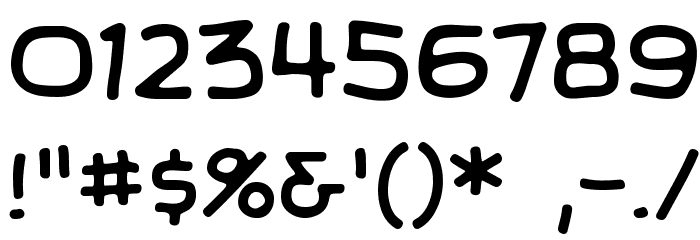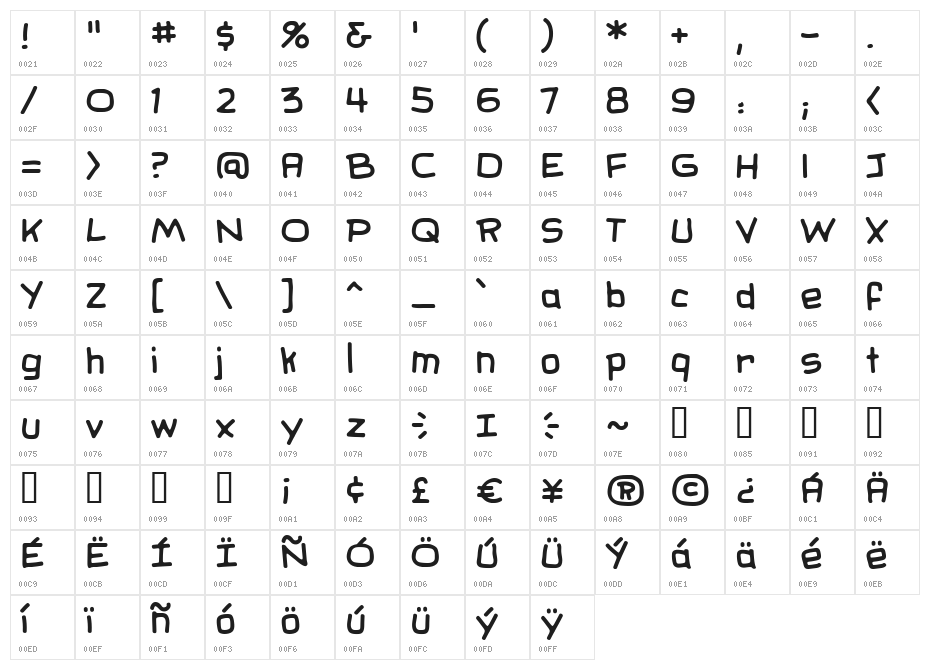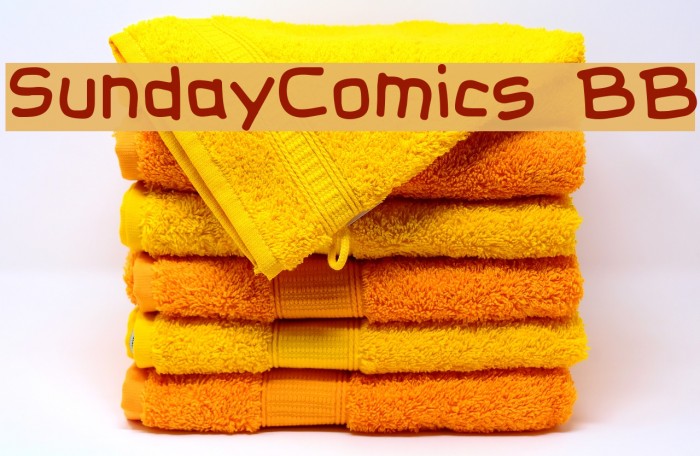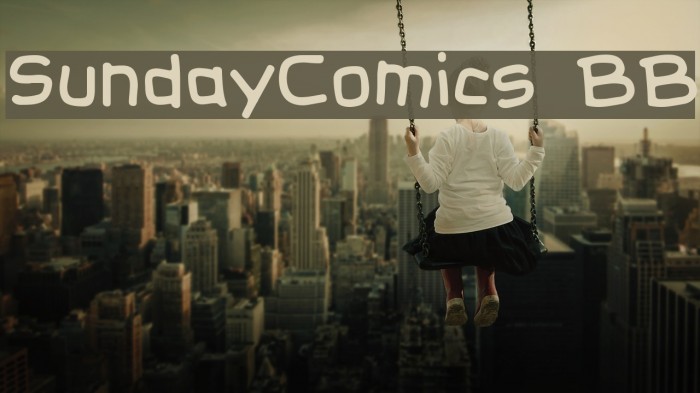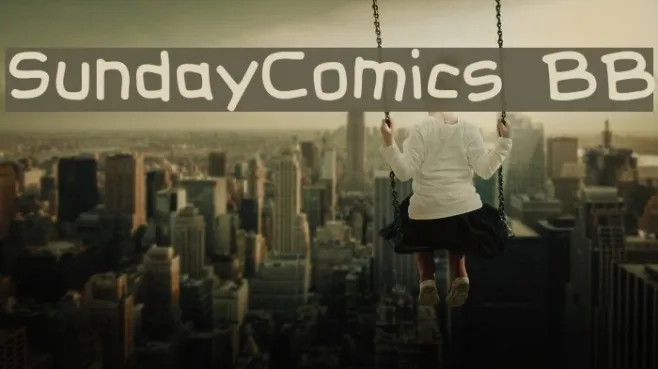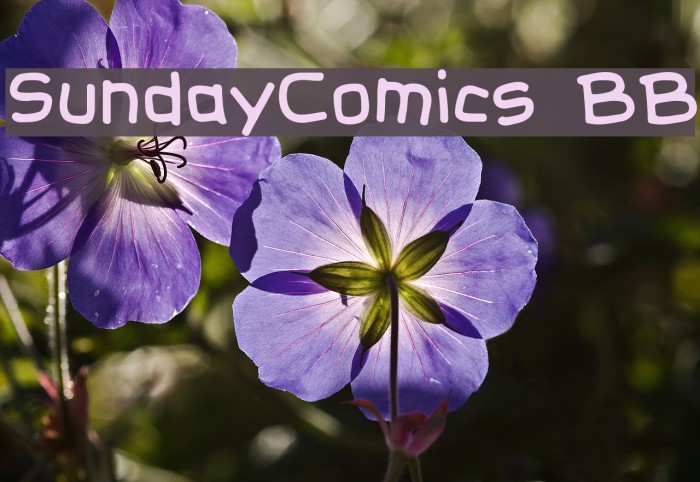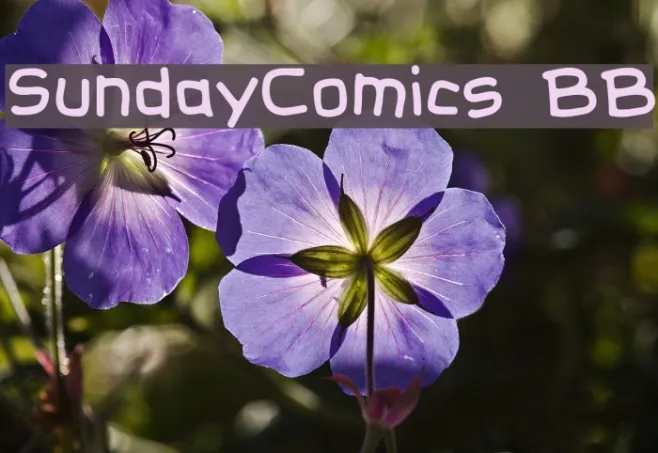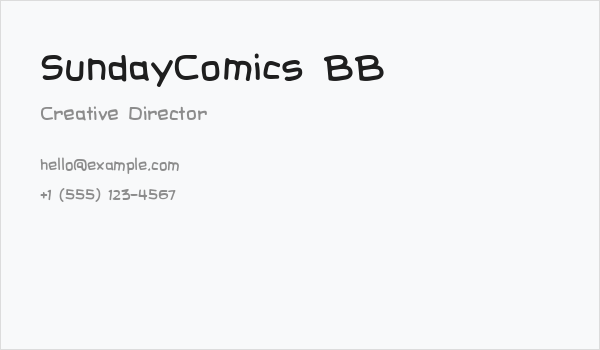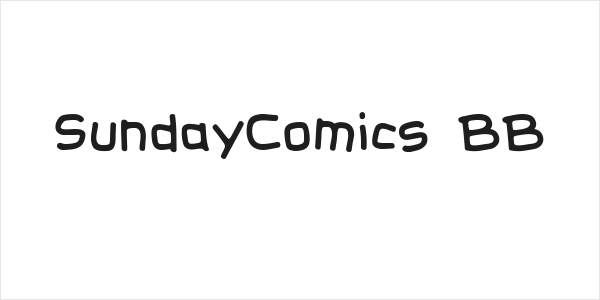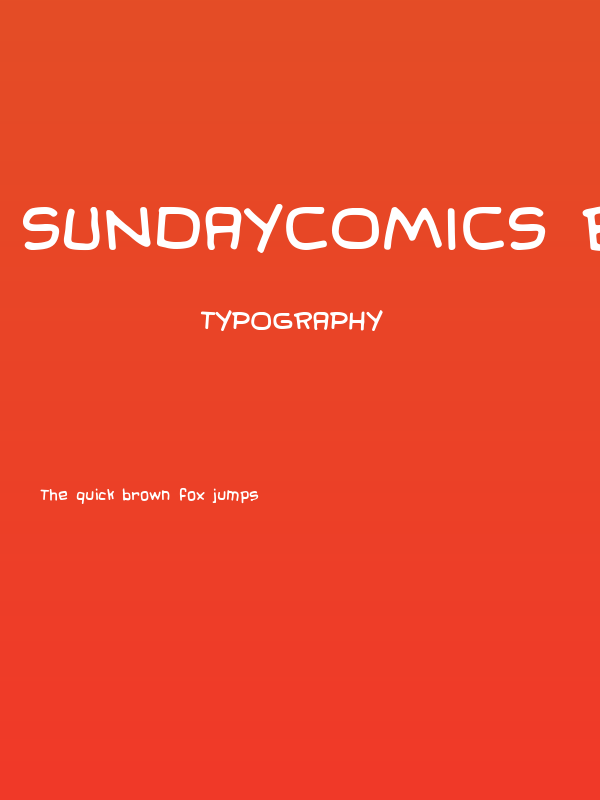
SundayComics BB Font
SundayComics BB Description
This playful and bold font features rounded, cartoon-like characters that evoke a sense of fun and whimsy. The letters have a hand-drawn quality, with slightly irregular shapes and varying stroke widths that add to its informal and approachable style. The uppercase and lowercase letters maintain a consistent visual theme, while the numerals and special characters complement the overall design. This font is perfect for projects that require a lighthearted and engaging aesthetic, making it ideal for children's books, comic strips, and playful branding.
| Proposed Projects | Children's books, comic strips, playful branding, greeting cards, and posters. |